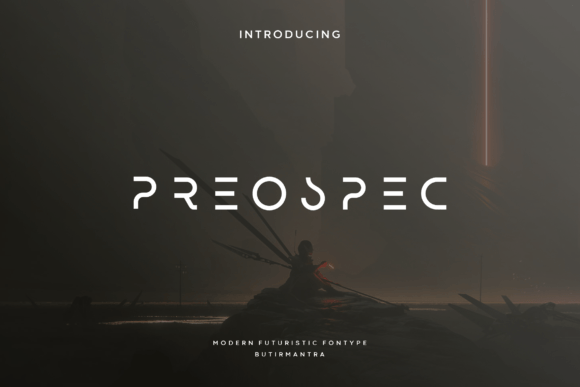
Introducing Preospec Font: The Modern, Elegant, and Futuristic Typeface for Your Design Needs
In the world of typography, fonts play a crucial role in conveying the message and aesthetic of a design. With the numerous font options available, it can be overwhelming to choose the perfect one that suits your project’s requirements. However, if you’re looking for a modern, elegant, and futuristic font that adds a unique touch to your designs, look no further than Preospec Font.
What is Preospec Font?
Preospec is a modern, elegant, and futuristic font designed to meet the demands of contemporary design. Its sleek lines, precise curves, and futuristic aesthetic make it an ideal choice for a wide range of design applications, from web designs and business cards to posters, brochures, and more.
Key Features of Preospec Font
So, what makes Preospec Font stand out from the rest? Here are some of its key features:
- Modern and Elegant Design: Preospec Font boasts a modern and elegant design that exudes sophistication and style.
- Futuristic Aesthetic: Its futuristic look makes it perfect for designs that require a cutting-edge feel.
- High Versatility: Preospec Font is highly versatile and can be used for a wide range of design applications.
- Unique Touch: The font’s distinctive style adds a unique touch to your designs, setting them apart from the rest.
Use Cases for Preospec Font
Preospec Font is an excellent choice for various design projects, including:
- Web Designs: Add a modern and futuristic touch to your website with Preospec Font.
- Business Cards: Create a lasting impression with a business card that features Preospec Font.
- Posters and Brochures: Use Preospec Font to create eye-catching posters and brochures that grab attention.
- Logos and Branding: Preospec Font is an excellent choice for logos and branding projects that require a modern and elegant look.
Benefits of Using Preospec Font
By choosing Preospec Font for your design projects, you can enjoy several benefits, including:
- Enhanced Visual Appeal: Preospec Font adds a touch of elegance and sophistication to your designs, making them more visually appealing.
- Improved Readability: The font’s clear and precise lines ensure excellent readability, even at small font sizes.
- Unique Identity: Preospec Font helps create a unique identity for your brand, setting you apart from competitors.
- Time-Saving: With Preospec Font, you can save time and effort in designing and refining your typography.
Tips for Getting the Most Out of Preospec Font
To get the most out of Preospec Font, consider the following tips:
- Experiment with Font Sizes: Try different font sizes to create visual hierarchy and emphasis.
- Pair with Other Fonts: Pair Preospec Font with other fonts to create a unique and harmonious typography.
- Adjust Line Spacing: Adjust line spacing to improve readability and flow.
- Use Font Styles: Use font styles, such as bold and italic, to add emphasis and create visual interest.
In conclusion, Preospec Font is a modern, elegant, and futuristic font that is perfect for designers looking to add a unique touch to their projects. With its versatility, readability, and aesthetic appeal, Preospec Font is an excellent choice for a wide range of design applications. By following the tips and guidelines outlined in this article, you can get the most out of Preospec Font and create stunning designs that leave a lasting impression.